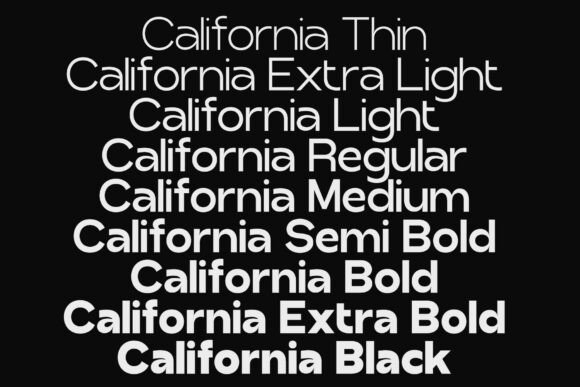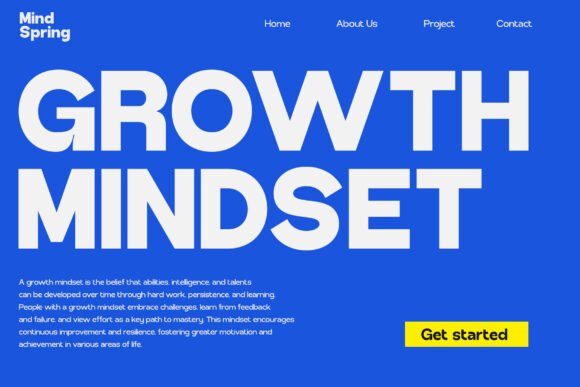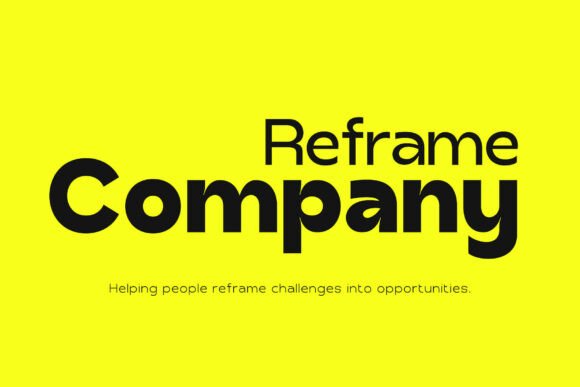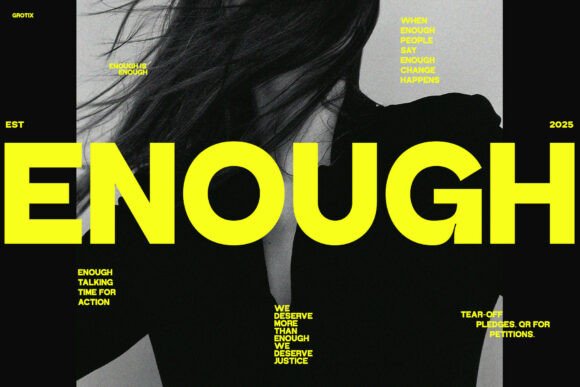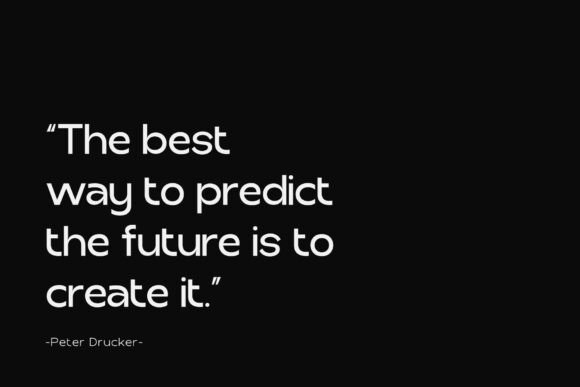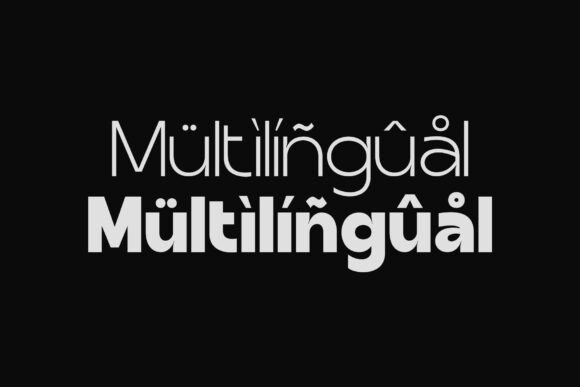
Introduction to Grotix Font
Grotix is ​​a sleek, contemporary sans-serif typeface designed for versatility and elegance.
Inspired by classic grotesque typefaces but reimagined with a modern twist, Grotix brings clean lines, geometric balance, and a professional feel to every letterform Perfect for branding, editorial design, websites, packaging, and user interfaces, Grotix comes in a full range of weights from Thin to Extra Bold with matching italics to give you total creative control.
Key Features of Grotix Font
Why Choose Grotix Font?
Grotix Font offers exceptional quality and versatility, making it a valuable addition to your design toolkit. Whether you’re creating for personal projects or commercial use, Grotix Font delivers professional results.